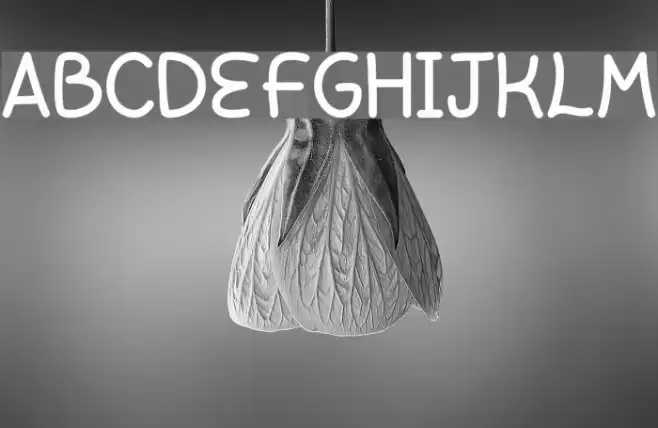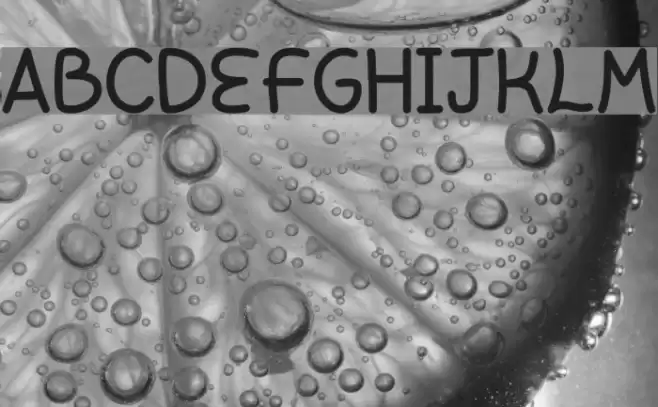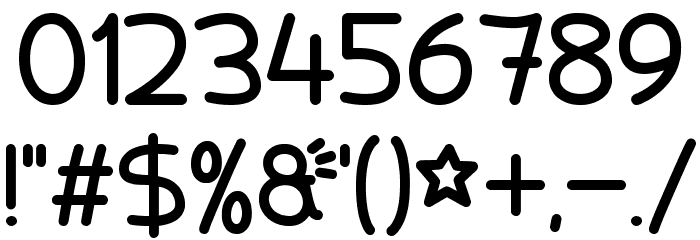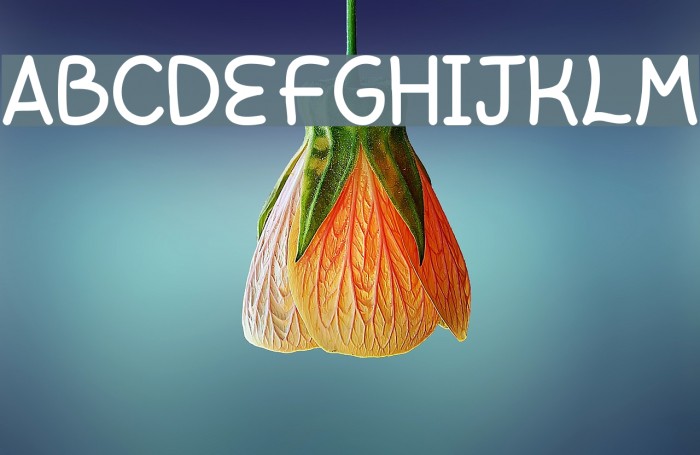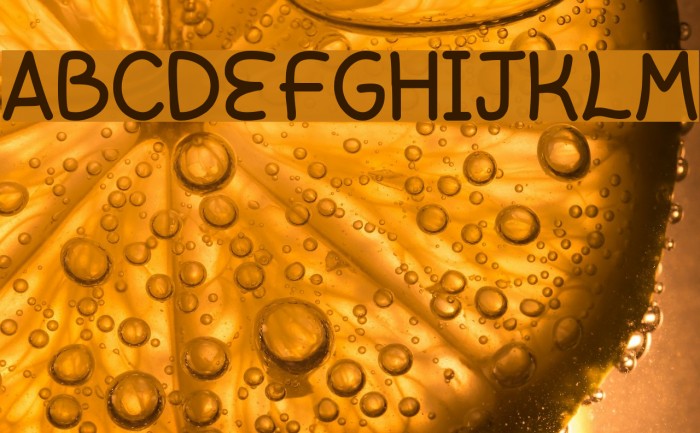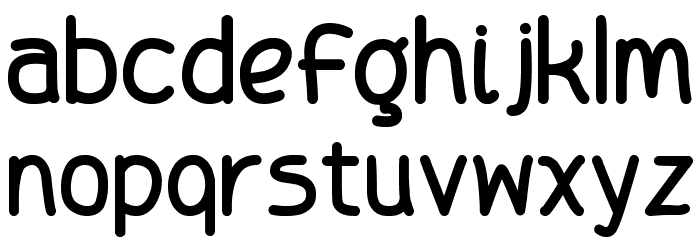
Rustic Love Tattoo Font
Rustic Love Tattoo Description
This font features a playful and casual handwritten style, characterized by its rounded and slightly irregular letterforms. The strokes are consistent in thickness, giving it a uniform appearance while maintaining a friendly and approachable feel. The uppercase and lowercase letters are well-balanced, with a slight tilt that adds to its informal charm. The numerals and special characters are designed to match the overall aesthetic, making it versatile for various uses. Its simplicity and warmth make it suitable for projects that require a personal touch.
A playful, handwritten font with rounded, consistent strokes and a casual feel from Uncategorized fonts.
- Proposed Projects: Ideal for greeting cards, children's books, casual branding, and social media graphics.
- Overall Style: Casual
- Use Case: Logos, Headlines, Informal Text